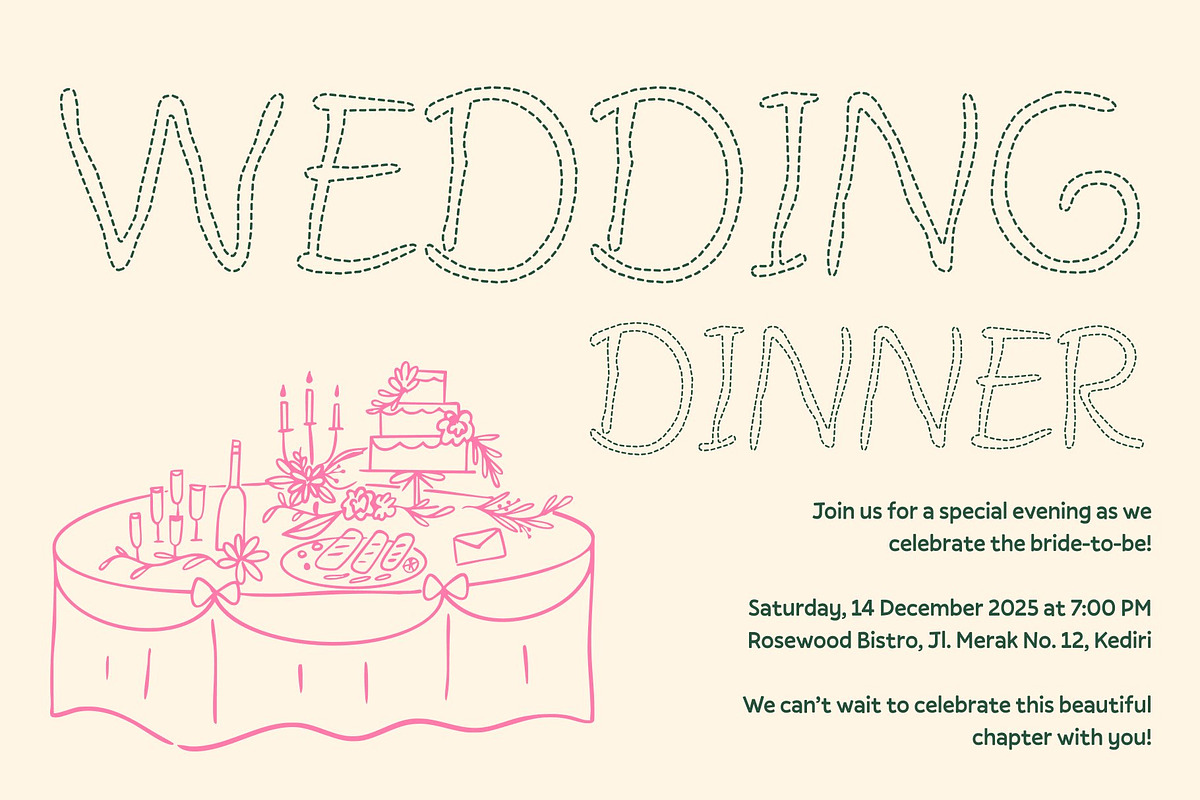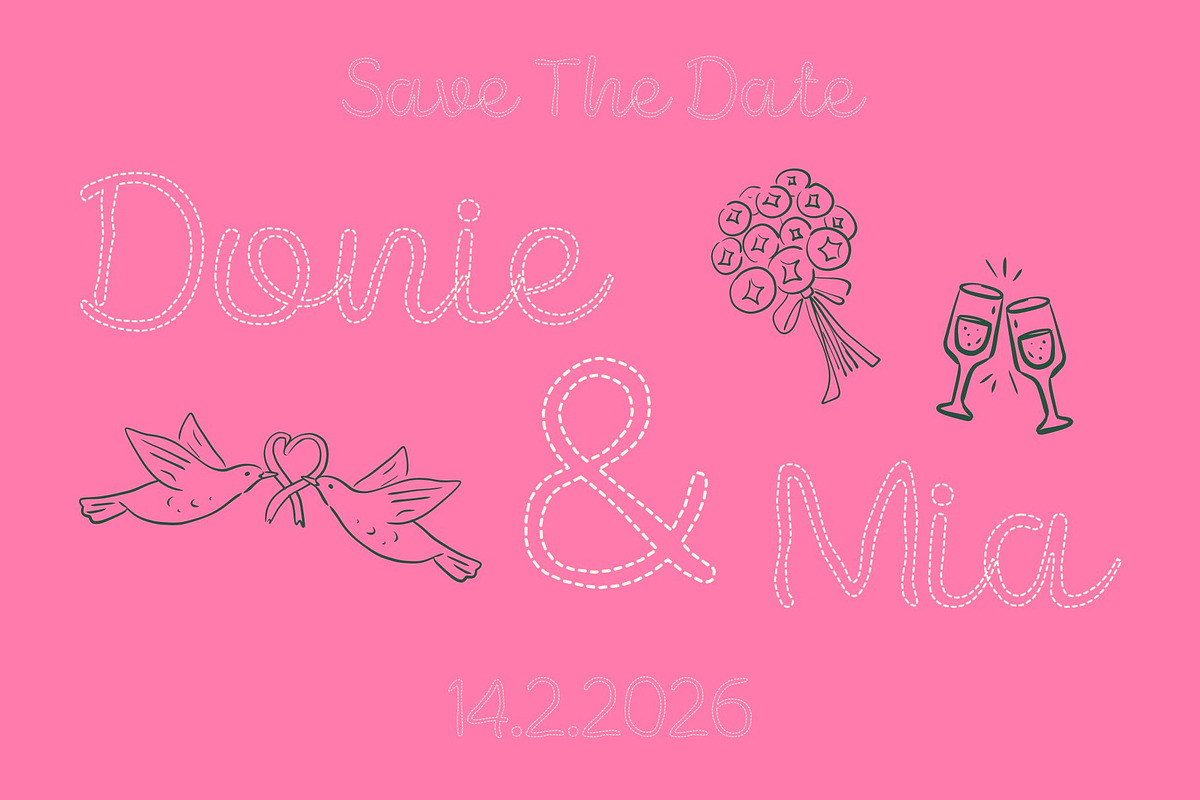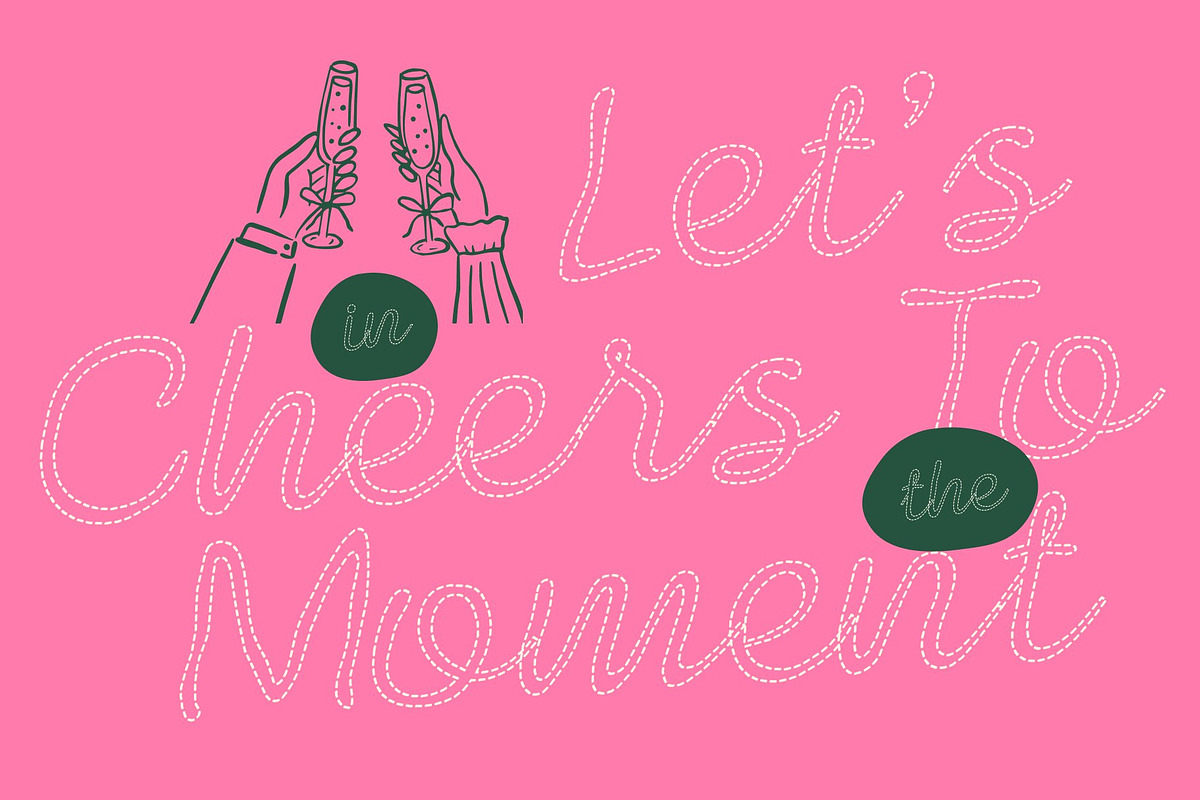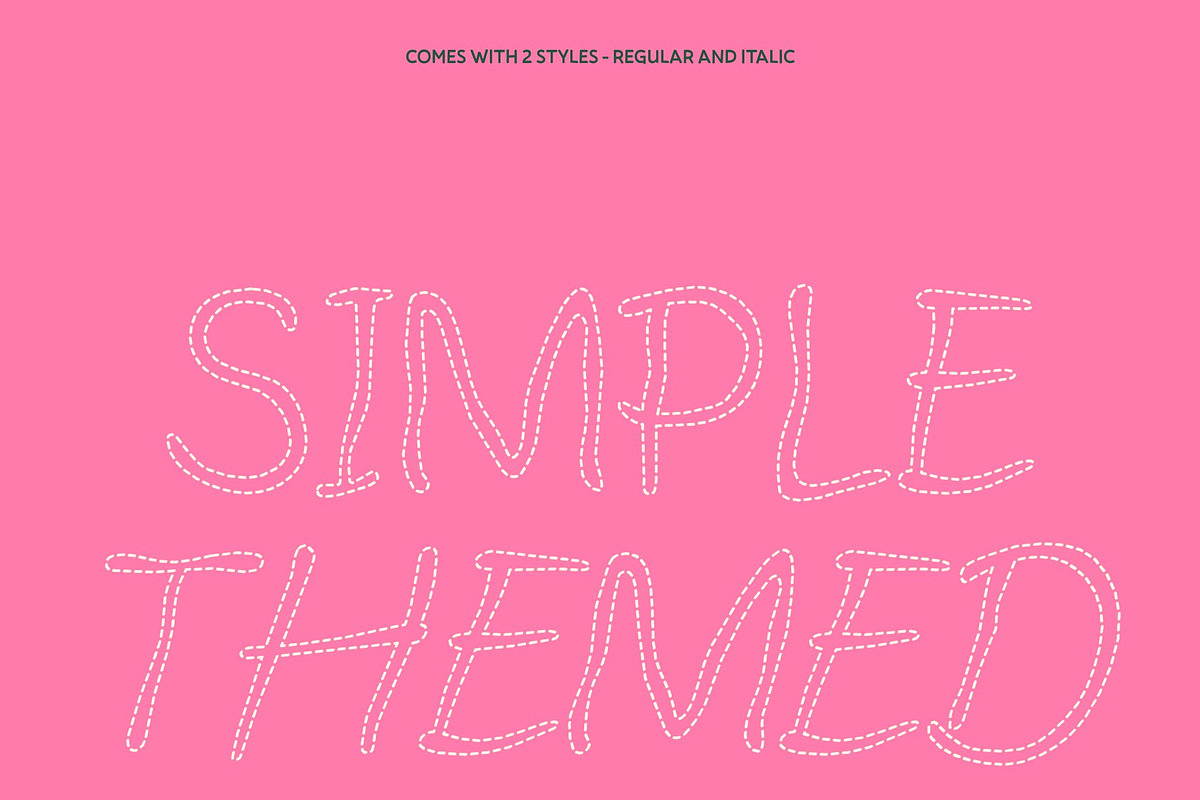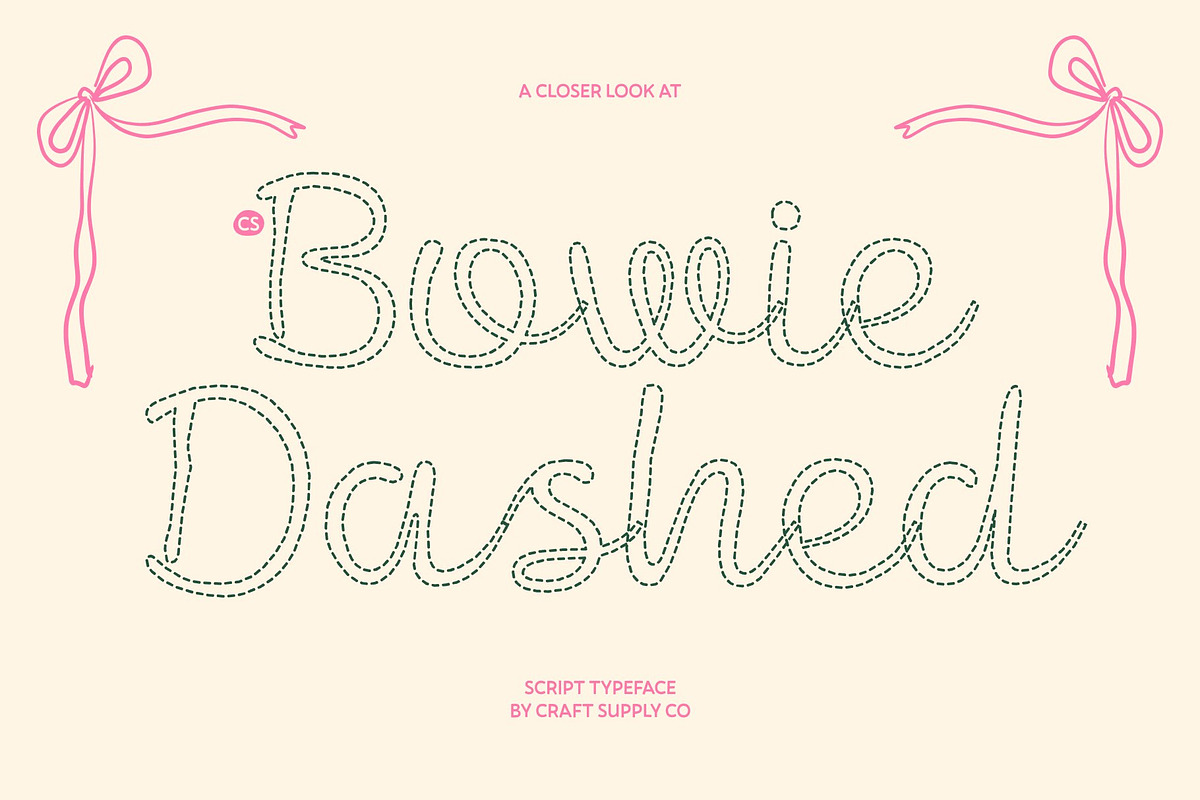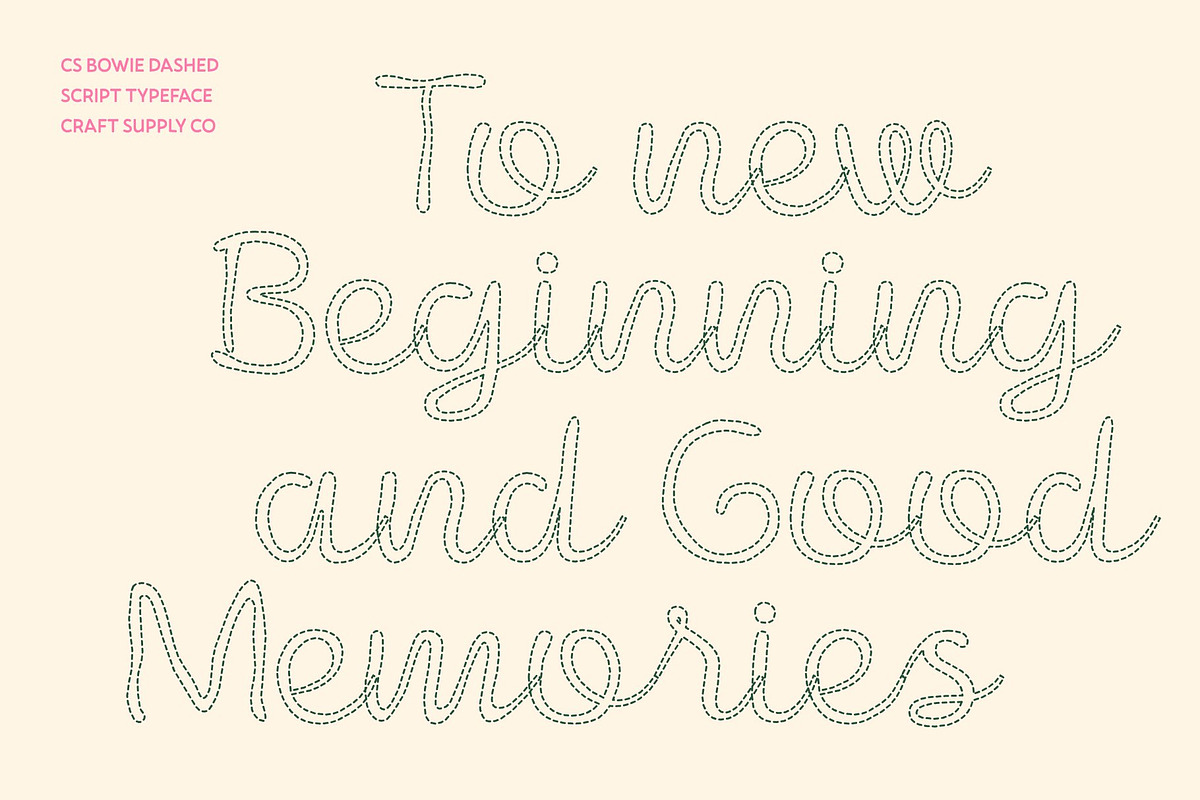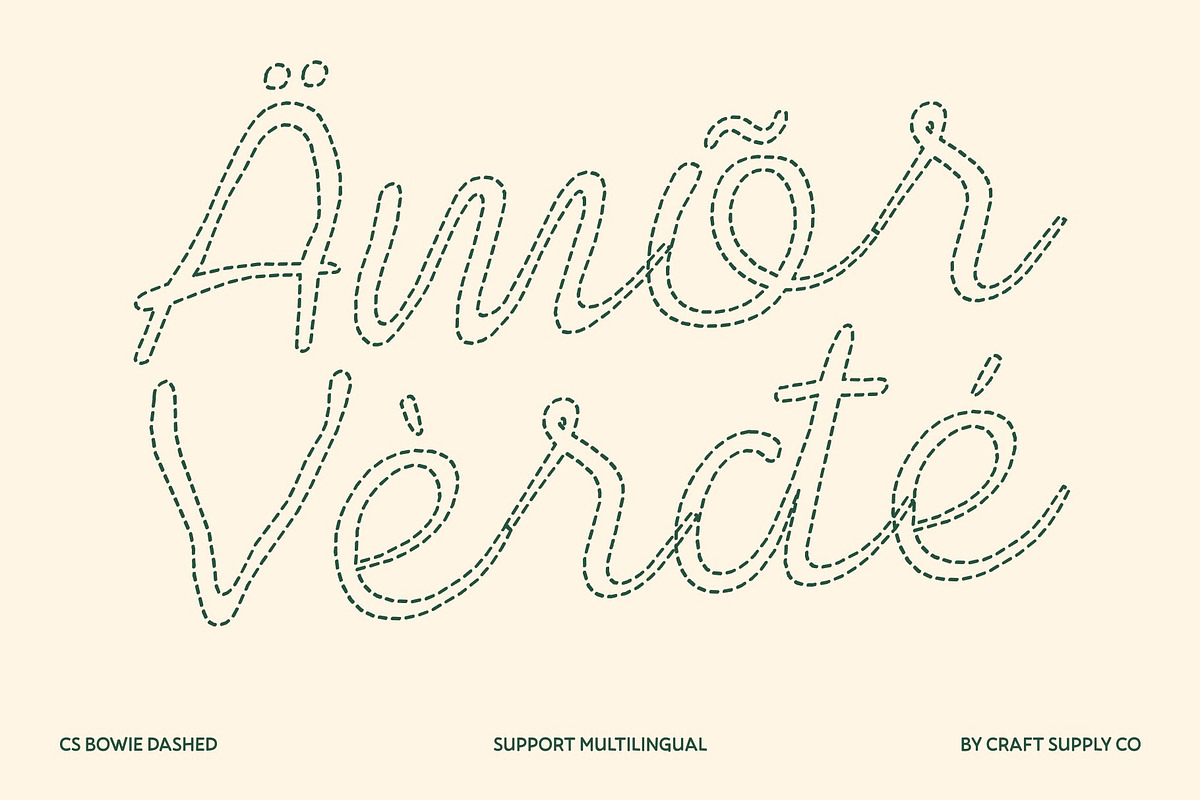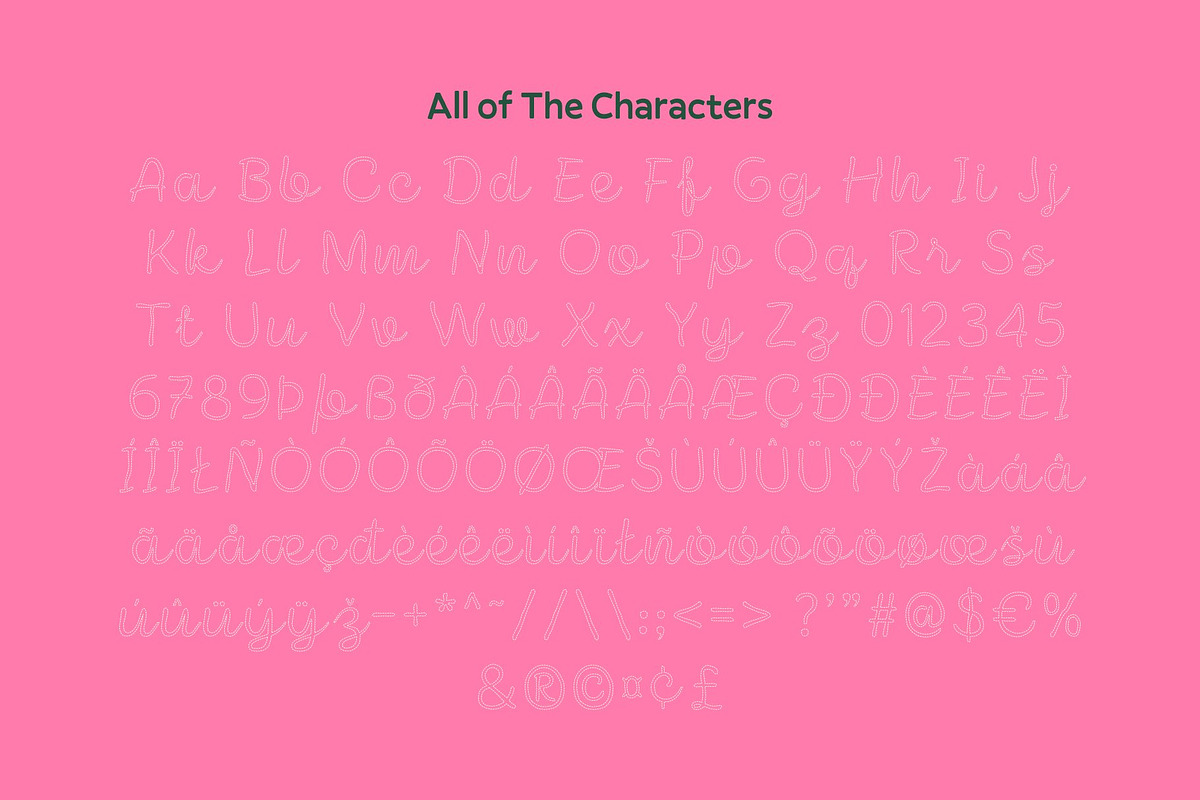
CS Bowie Dashed
CS Bowie Dashed – Script Font: Where Elegance Flows Naturally
Clean and Graceful Handwritten Style with a Creative Twist This font features a clean, flowing handwritten form designed to evoke elegance and modern charm. The dashed stroke effect transforms its smooth script into a light, artistic structure, giving the font a relaxed and creative personality while preserving its refined beauty.
Aesthetic Beauty with a Personal Touch The handwriting-inspired shapes give the font a soft and approachable feel while maintaining visual sophistication. The dashed texture adds a playful handcrafted nuance, making the typeface feel warm, expressive, and effortlessly stylish perfect for feminine or lifestyle-focused branding, elegant menus, or modern packaging.
Versatile for Stylish and Creative Projects From product labels and menu cards to editorial layouts and wedding stationery, this font adapts beautifully to a wide range of applications. Its airy, broken-line structure brings a sense of creativity and freshness, helping designs feel curated, friendly, and visually engaging.
Perfect Balance of Neatness and Expression Balancing structure with organic flow, this font offers both clarity and charm. The dashed style softens its polished appearance, making it ideal for minimalist layouts, branding materials, packaging, and social media visuals that need to feel elegant yet relaxed in both print and digital formats.
CS Bowie Dashed Regular
CS Bowie Dashed Italic